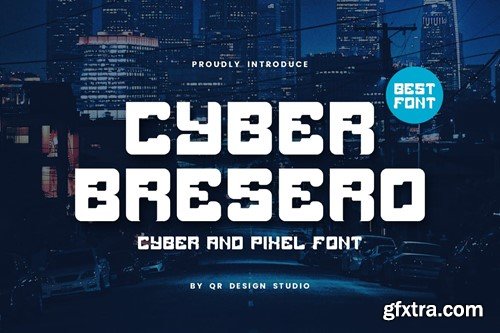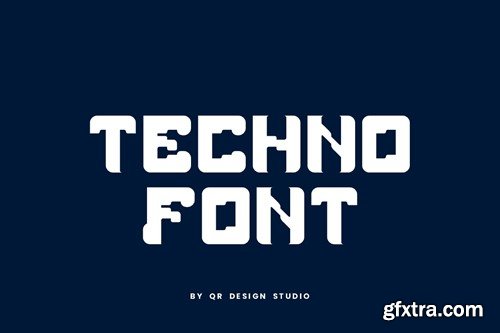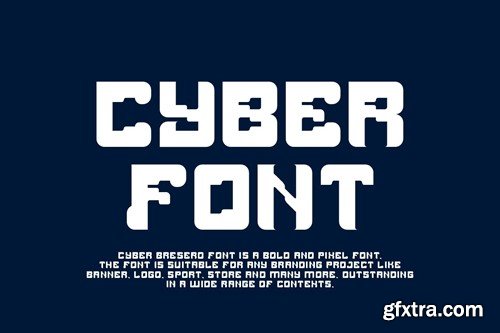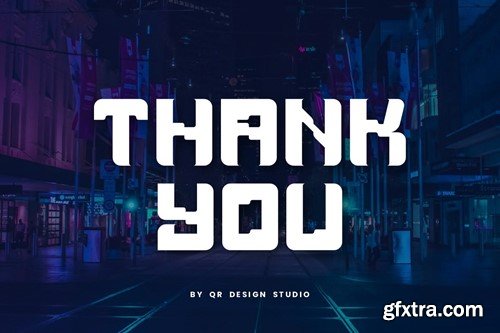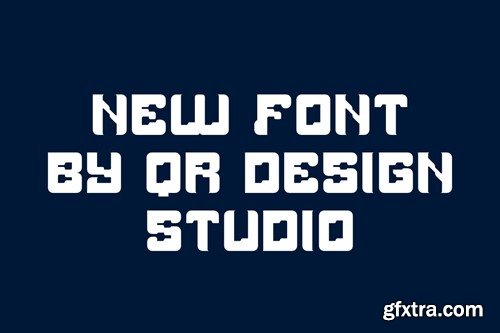
Cyber Bresero - 数字 & 技术字体 77PKYUL
Cyber Bresero - Digital & Tech Font 77PKYUL
Cyber Bresero - Digital & Tech Font
Cyber Bresero - Digital & Tech Font is a bold and authentic display font. The font is suitable for any branding project like poster, logo, sport, and many more. Outstanding in a wide range of contexts.